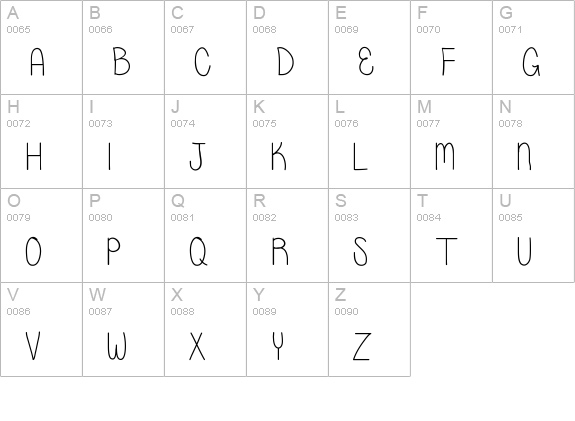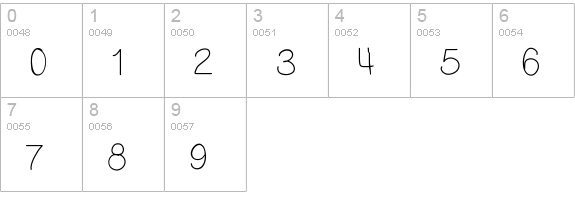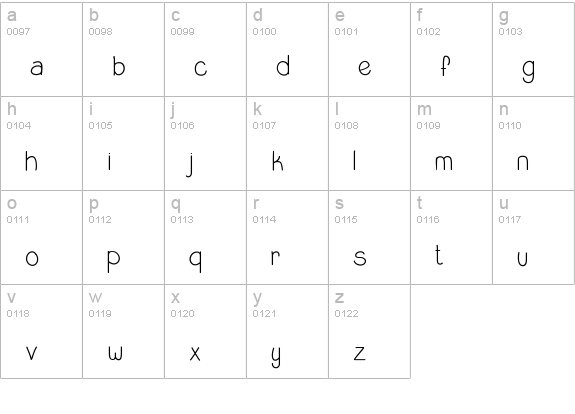
LittleMissPriss Font Details
LittleMissPriss font is a delightful and whimsical typeface that brings a touch of elegance and playfulness to any design project. With its graceful curves and delicate lines, this font exudes a sense of charm and sophistication. Perfect for invitations, greeting cards, branding, and more, LittleMissPriss font adds a touch of femininity and elegance to any project. Its unique letterforms are carefully crafted to create a harmonious balance between beauty and legibility, making it a versatile choice for both digital and print designs. But the best part? LittleMissPriss font is completely free! Yes, you heard that right. This stunning font is freely available to download at FontsMarket.com. So whether you're a designer looking to add a touch of elegance to your work or simply someone who appreciates beautiful typography, LittleMissPriss font is the perfect choice. With its generous character set and multiple weights, this font offers endless possibilities for creative expression. From elegant wedding invitations to stylish logos, LittleMissPriss font is sure to make a lasting impression. So why wait? Discover the beauty and versatility of LittleMissPriss font today and elevate your designs to new heights. Download it for free at FontsMarket.com and unleash your creativity with this stunning typeface.